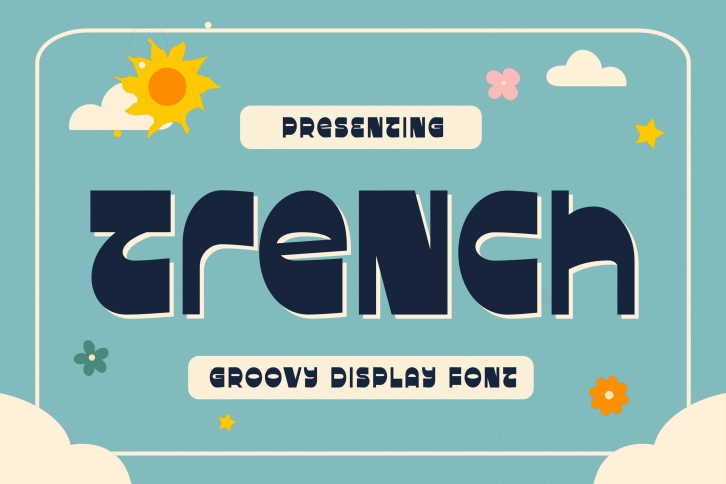
TreNcH is a cool, trendy and groovy display font. It works incredibly well on labels, branding and various other designs. Add it confidently to your favorite creations and let yourself be amazed by the outcome generated.Â